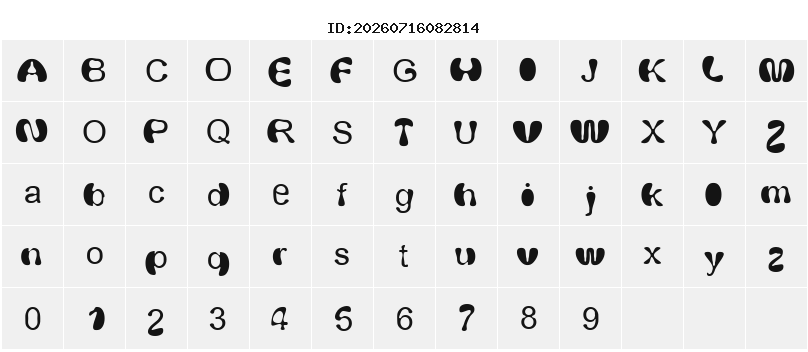
Arialous Preview
About Arialous.ttf
Arialous.ttf is a modern, elegant sans-serif font designed for ultimate readability and visual harmony. Perfect for branding, headlines, web design, and print materials.